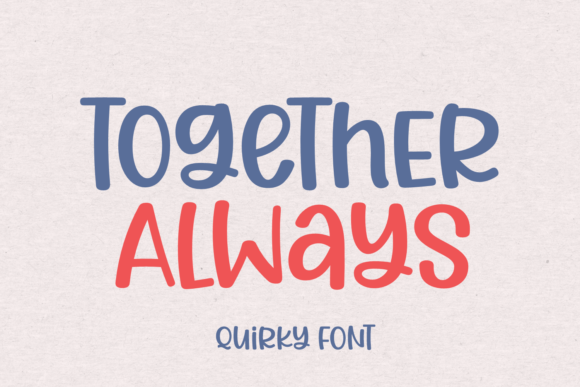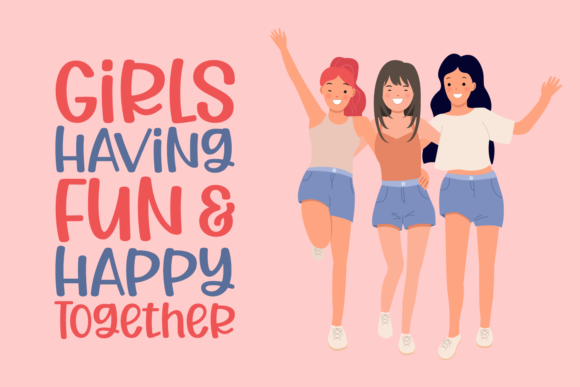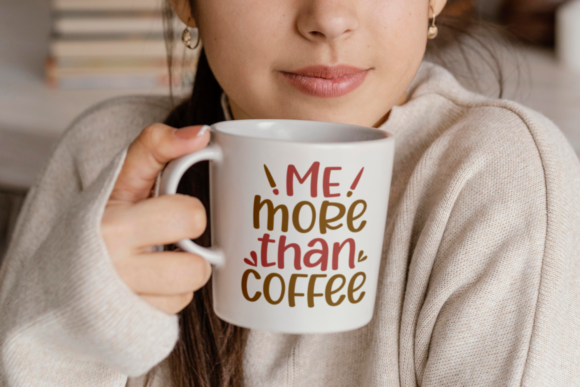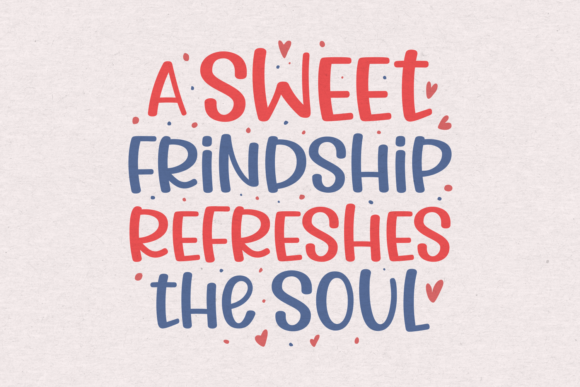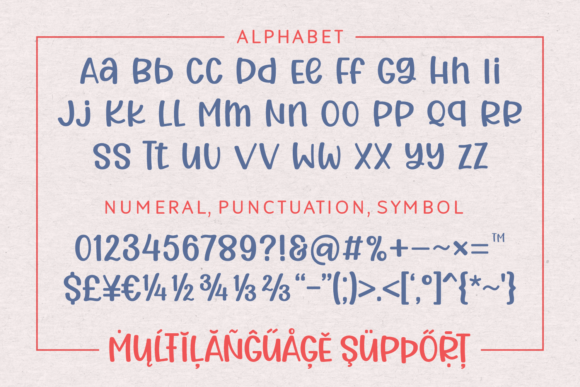
Together Always Font
About Together Always Font
Together always is a quirky handwritten style typeface. Its same size characters make this font an asset for all your playful crafts or designs. The font is compatible with cutting machines such as Cricut and Silhouette.